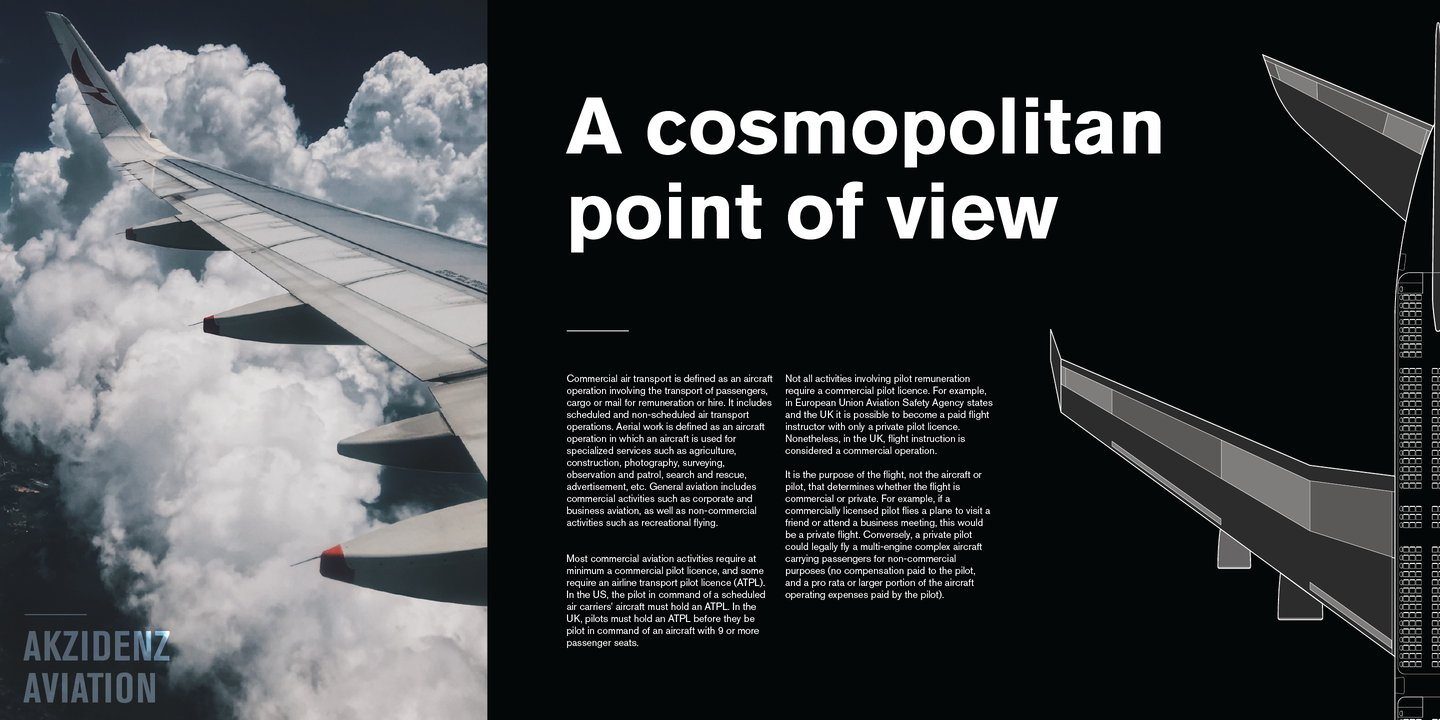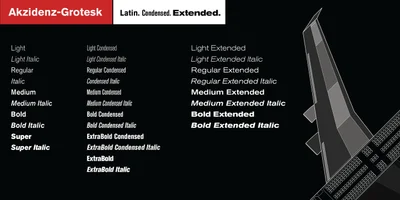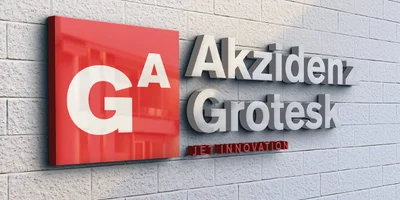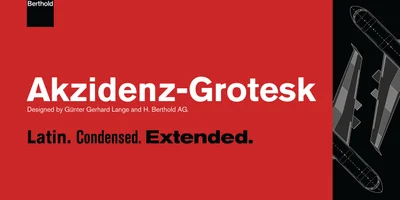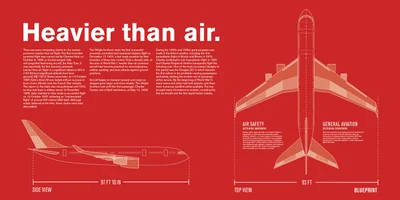
Akzidenz-Grotesk vs Replica
Akzidenz-Grotesk and Replica are both sans-serif typefaces sharing a neo-grotesque foundation. Where Akzidenz-Grotesk leans signage, retro, Replica brings geometric, minimal. Compare which suits your Editorial project.
Recommended: Akzidenz-Grotesk
- signage, retro design character
Consider: Replica
- geometric, minimal design character
- Suited for Cultural